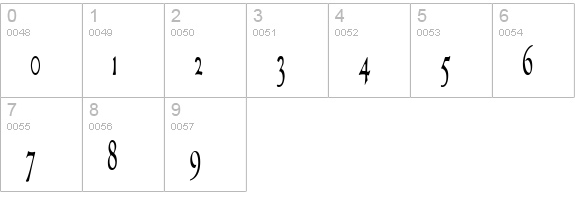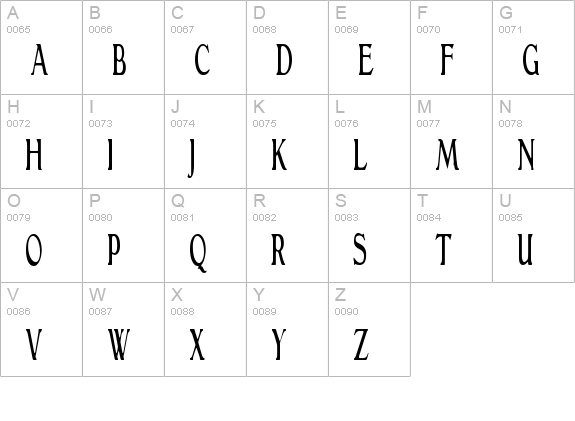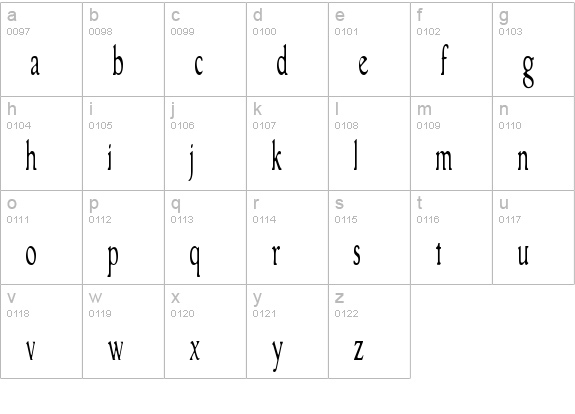
GranthamLightCondensed is a modern and sophisticated font that exudes elegance and style. Its streamlined design and slender letterforms make it perfect for adding a touch of sophistication to any project. The clean lines and subtle curves of GranthamLightCondensed create a sense of minimalism and refinement, making it ideal for a wide range of design applications. This font is versatile and can be used for various purposes, from branding to editorial design. Its condensed style allows for efficient use of space without sacrificing readability. GranthamLightCondensed is a timeless font that will never go out of style. Best of all, GranthamLightCondensed is available for free download at FontsMarket.com. This means you can easily access this premium font without any cost, making it a valuable addition to your font library. Whether you're a designer looking to elevate your projects or a typographer searching for a new favorite font, GranthamLightCondensed is sure to impress with its sleek and sophisticated aesthetic.